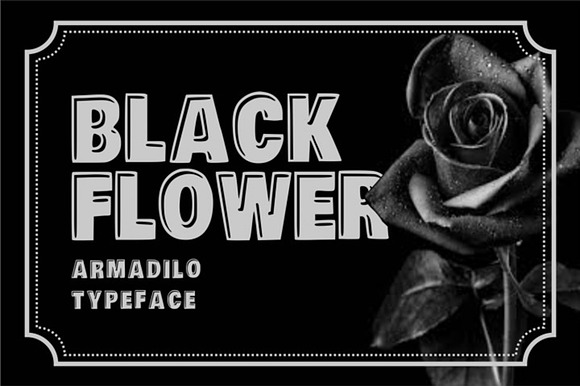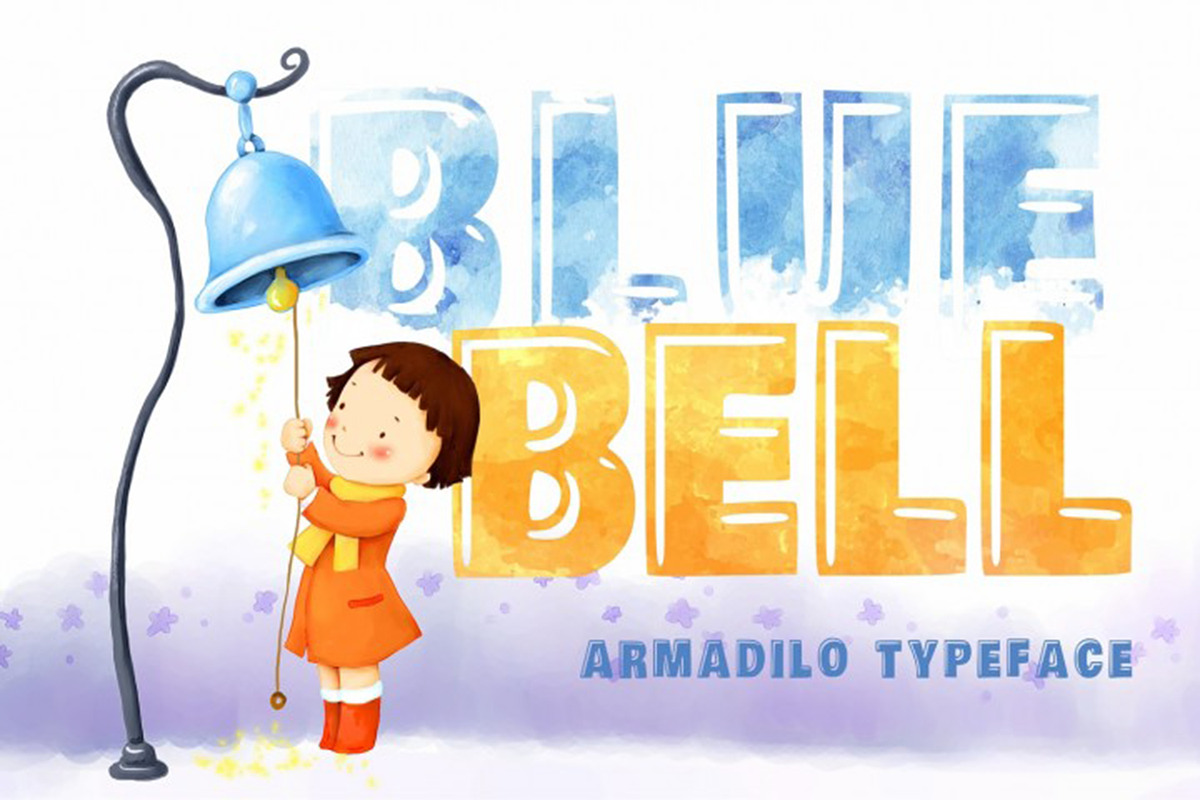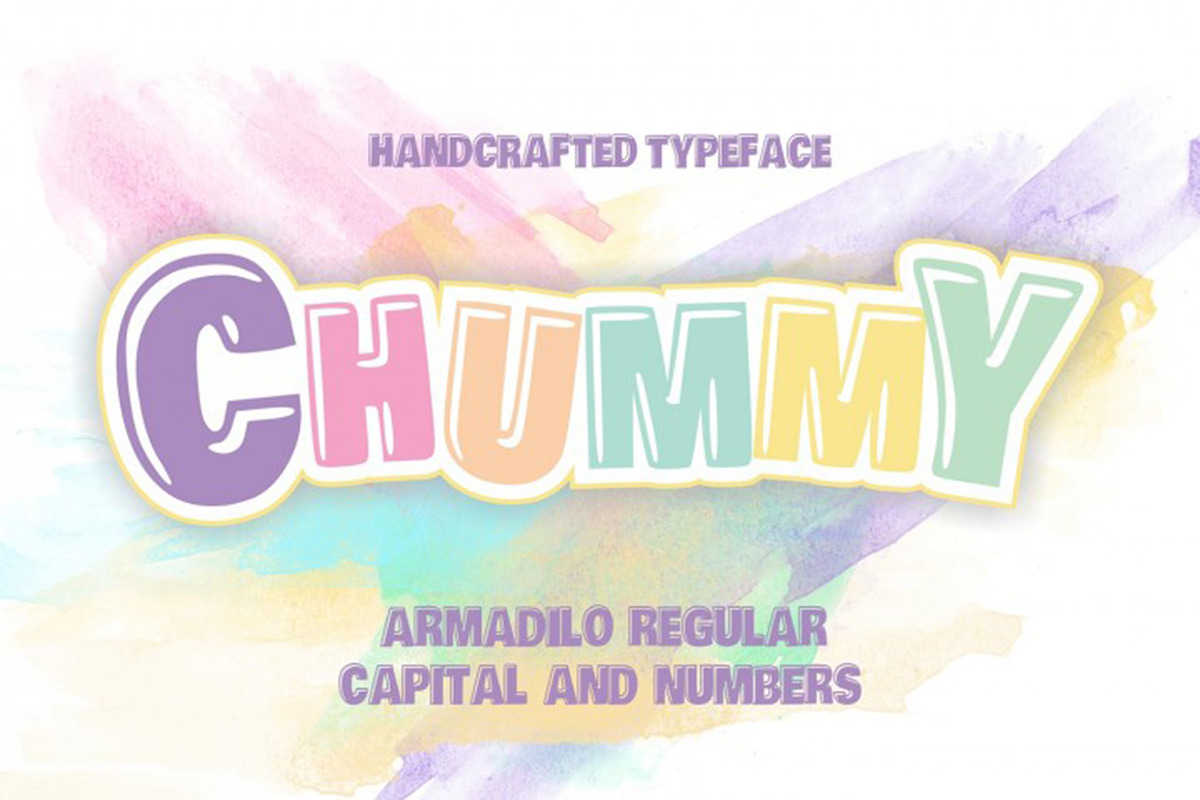
Armadilo font Display typeface
Why Armadilo font Display typeface is worth a look
Armadilo font Display typeface by Vintage Font Lab fits naturally into Branding, posters, packaging, typography.